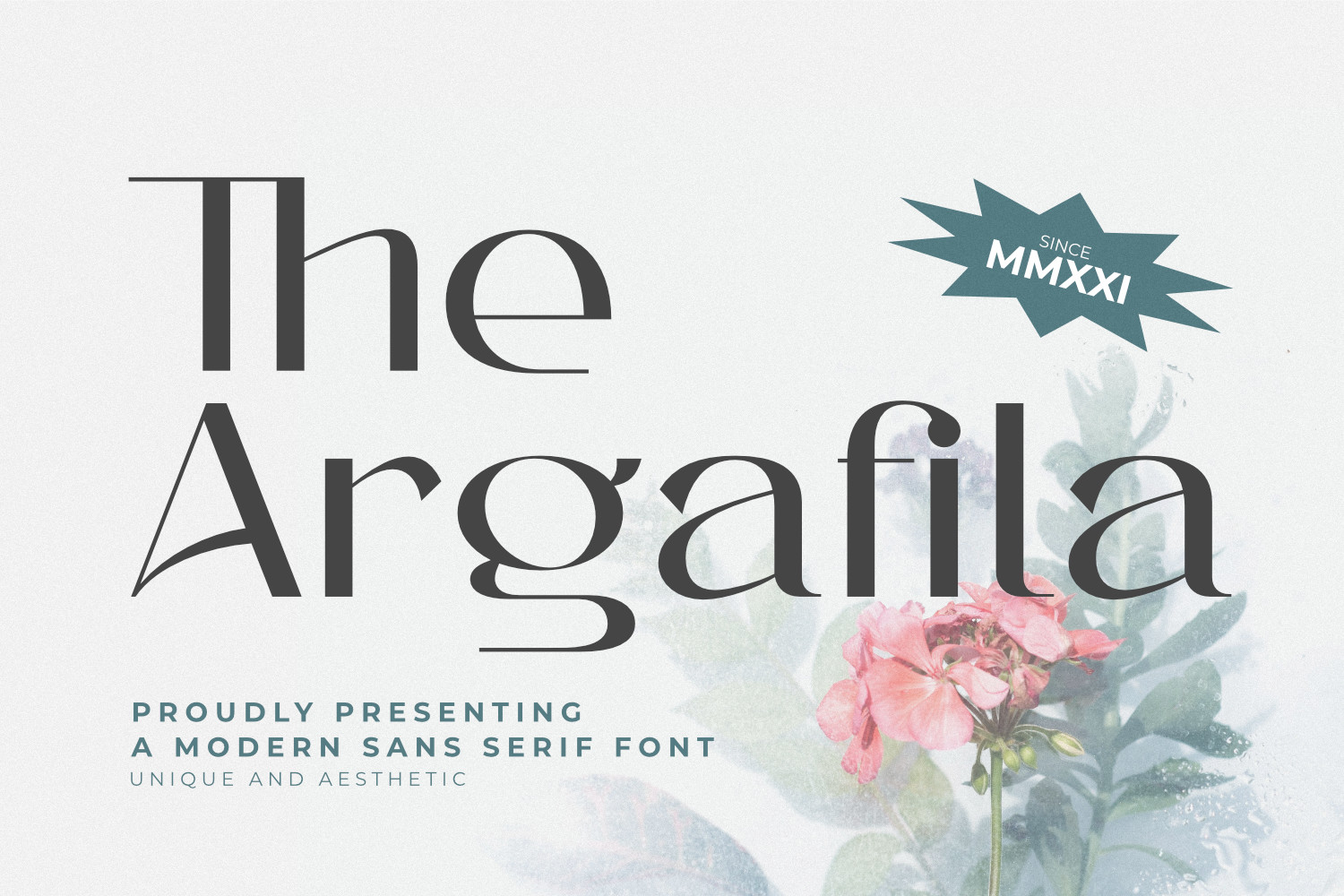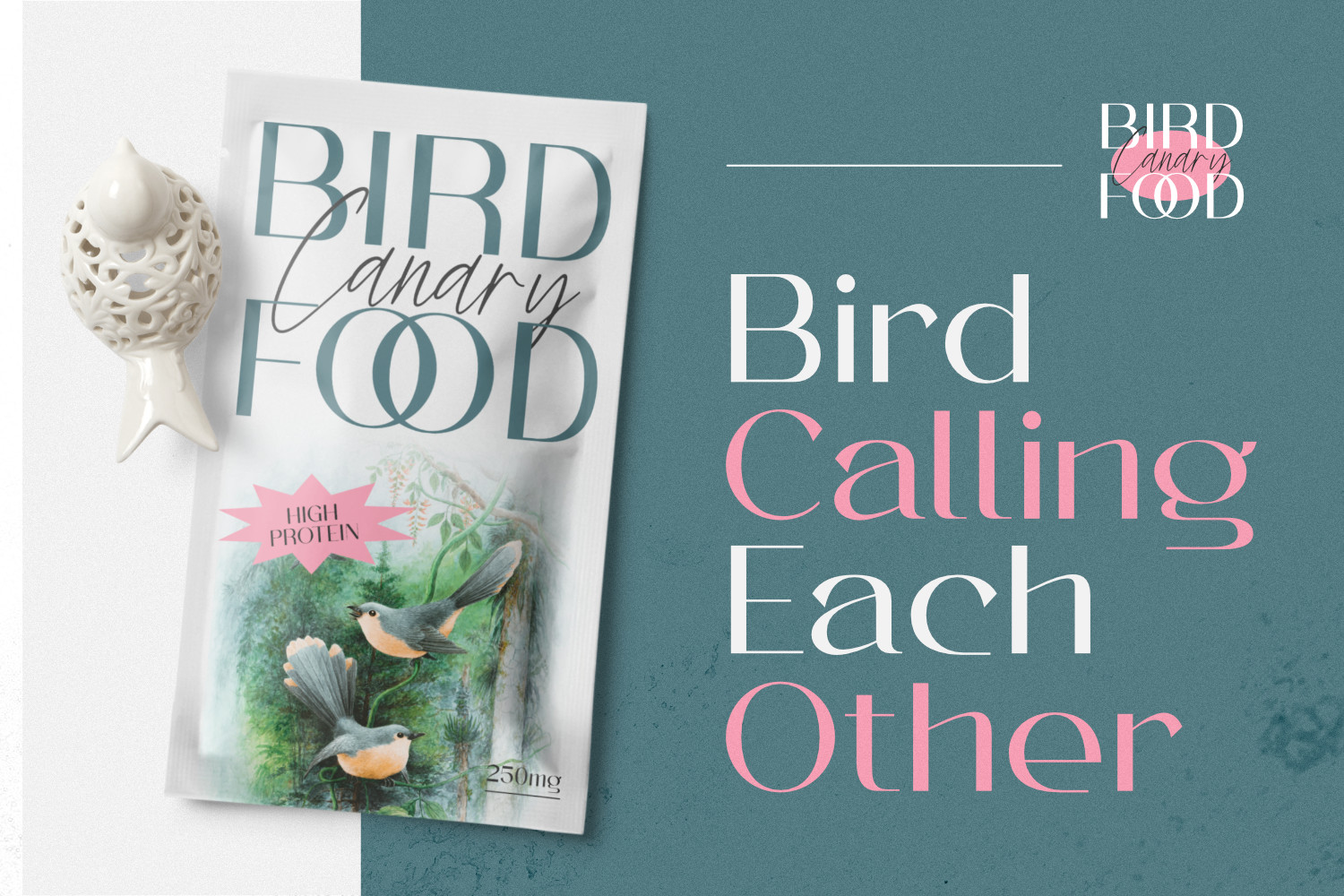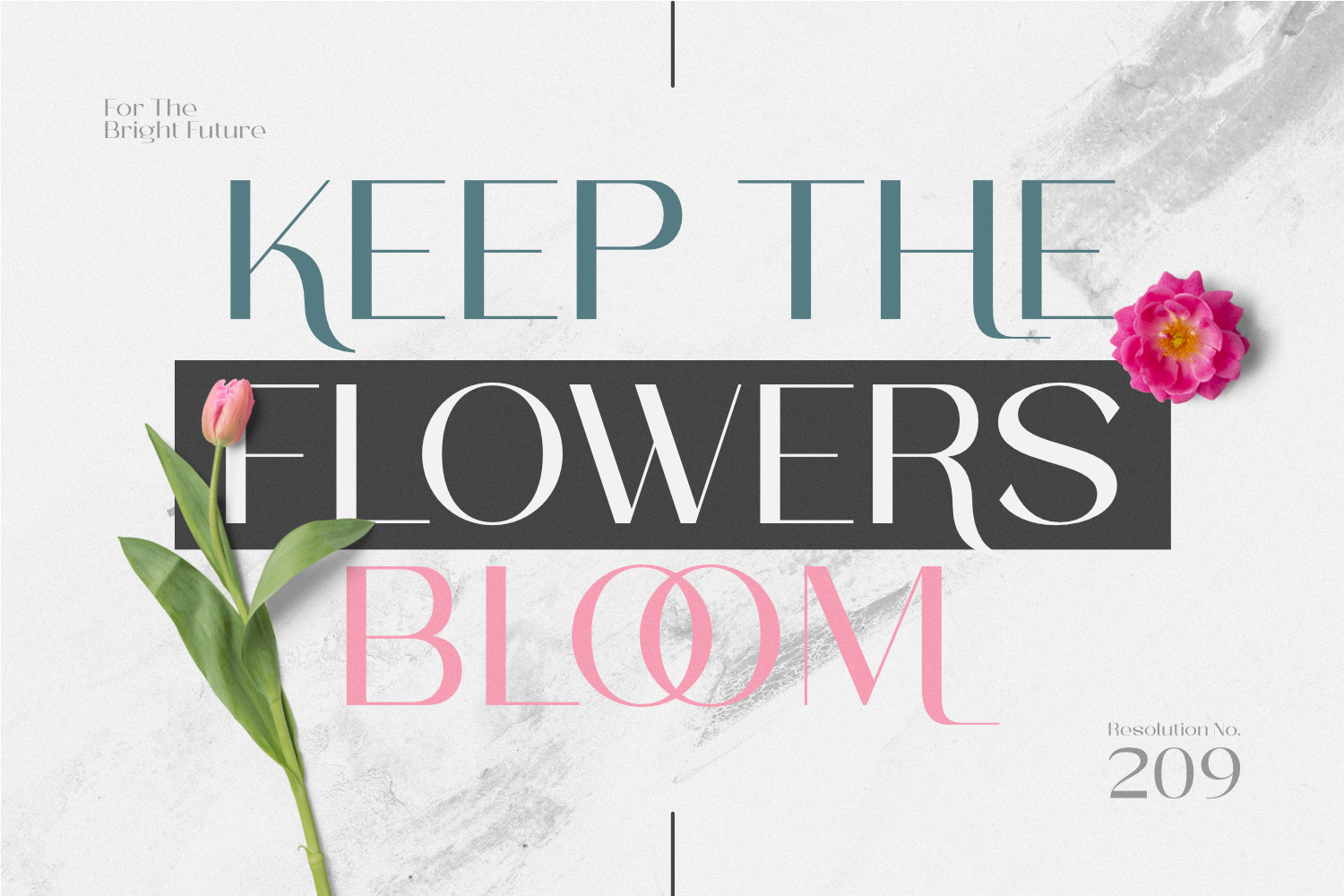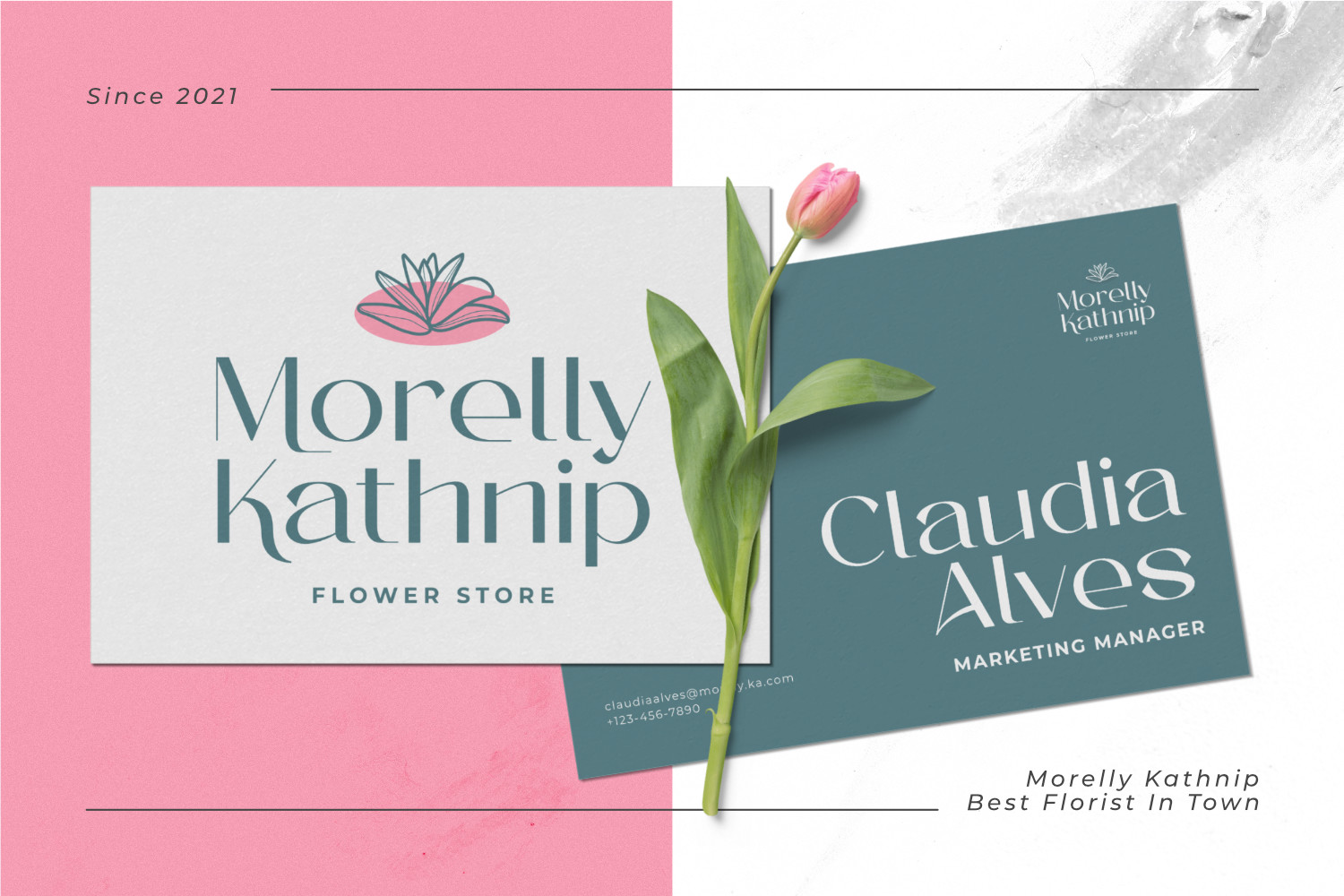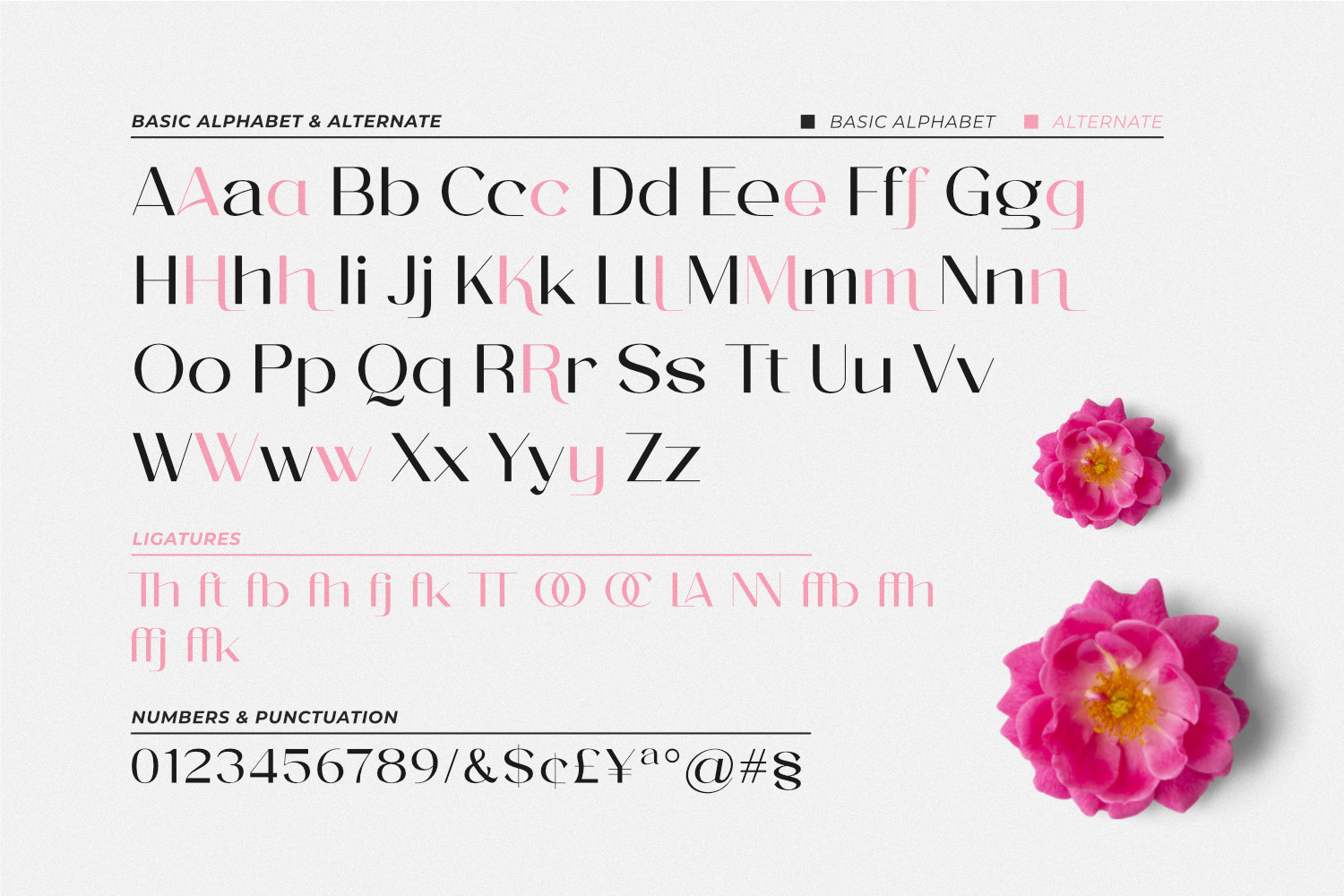
Argafila is a modern and elegant sans serif font designed with high aesthetic value and graceful curves. Featuring delicate lines, sweeping terminals, and stylish alternates, Argafila provides a clean yet distinctive look for contemporary design projects. Its fashionable appearance and refined structure make it a perfect choice for branding, editorial headlines, beauty packaging, and upscale promotional materials.
This font also includes unique ligatures and a balanced set of alternates, allowing for a rich typographic experience. Whether you’re designing floral branding, luxury magazines, or product labels, Argafila ensures your work stands out with charm and sophistication. It embraces both minimalism and femininity, ideal for those who value modern elegance.
Argafila